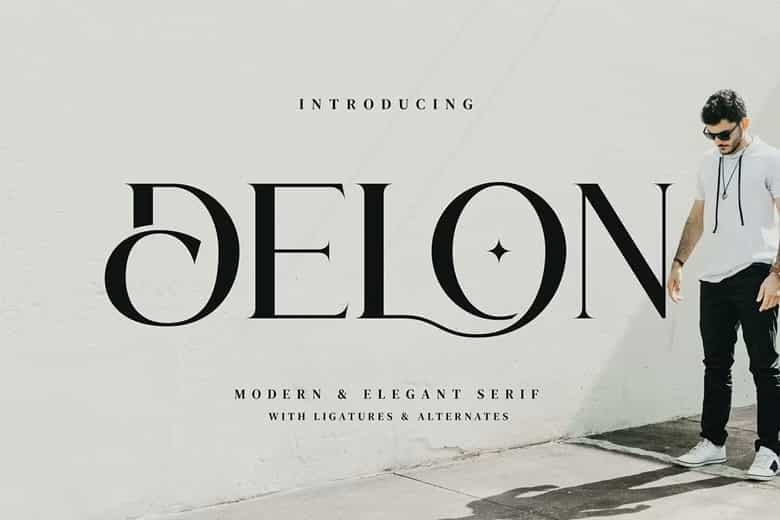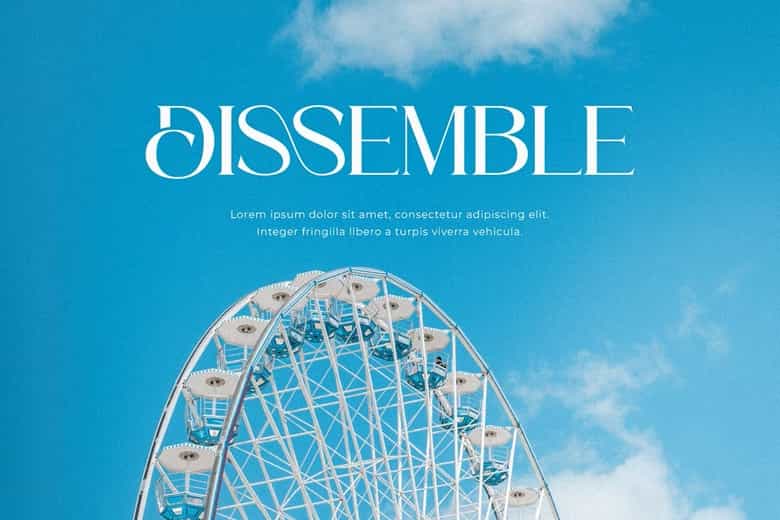
Delon is a modern serif font which relates to fashion and tenderness, it seems beautiful and provides refined look for every design. This font, with organic and tight sweet curves in the letters perfect for high-end branding, and any kind of magazines, wedding invitation & jewelry or luxury packaging.